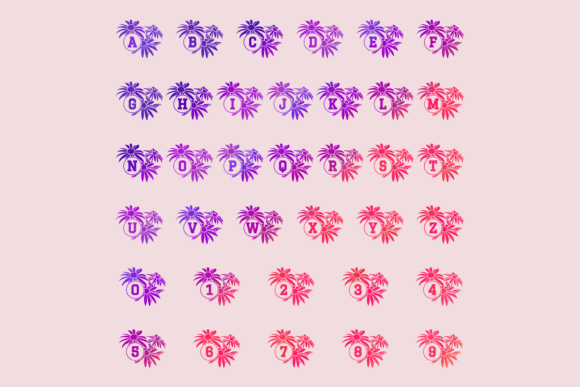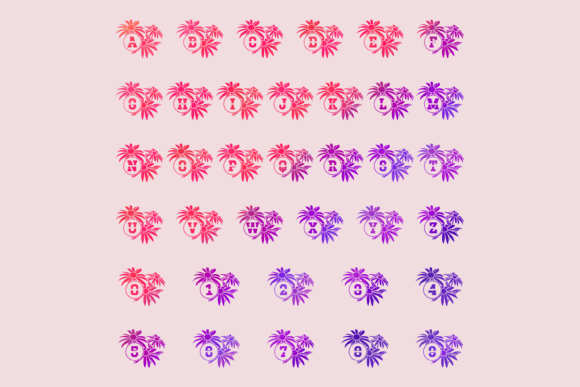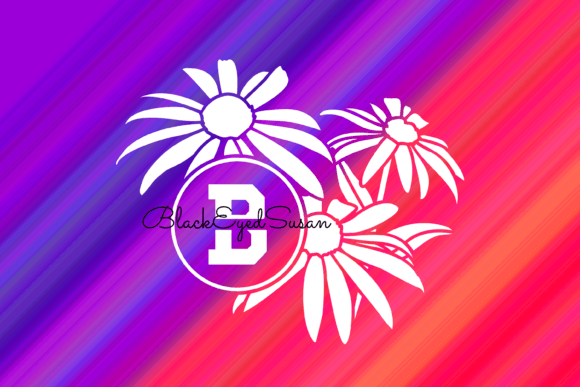
Introducing the Elegant Black Eyed Susan Font: Elevate Your Crafts with a Touch of Botany
Are you a designer, crafter, or DIY enthusiast looking for a unique and elegant font to add a special touch to your creations? Look no further than the Black Eyed Susan Font, a beautiful botanical decorative font that is sure to impress. This stunning font consists of two styles: regular and split, offering versatility and flexibility for a wide range of projects.
What is the Black Eyed Susan Font?
The Black Eyed Susan Font is a carefully crafted botanical decorative font that captures the essence of nature’s beauty. Inspired by the delicate petals and intricate details of the Black Eyed Susan flower, this font is perfect for adding a touch of elegance and sophistication to your designs. With its ornate and flowing lines, this font is ideal for creating custom designs, DIY crafts, and other creative projects that require a lovely touch.
Key Features of the Black Eyed Susan Font
- Two Styles: The Black Eyed Susan Font comes in two styles: regular and split. The regular style offers a smooth, flowing design, while the split style adds a unique and creative twist with its divided letterforms.
- Elegant and Botanical: This font is inspired by the beauty of nature, making it perfect for projects that require a touch of elegance and sophistication.
- Versatile: The Black Eyed Susan Font can be used for a wide range of projects, from custom designs and DIY crafts to stationery, signage, and more.
Uses for the Black Eyed Susan Font
The Black Eyed Susan Font is perfect for a variety of projects, including:
- Custom Designs: Add a personal touch to your designs with this beautiful font. Use it for logos, branding, and marketing materials.
- DIY Crafts: Elevate your DIY crafts with the Black Eyed Susan Font. Use it for scrapbooking, card making, and other paper crafts.
- Stationery: Create beautiful stationery, such as invitations, greeting cards, and letterhead, with this elegant font.
- Signage: Use the Black Eyed Susan Font for signage, such as menus, posters, and banners.
Tips for Using the Black Eyed Susan Font
To get the most out of the Black Eyed Susan Font, here are a few tips:
- Experiment with Colors: Try pairing the Black Eyed Susan Font with different colors to create unique and eye-catching designs.
- Mix and Match: Combine the regular and split styles to create interesting and dynamic designs.
- Use it Sparingly: Use the Black Eyed Susan Font sparingly to add a touch of elegance to your designs. Avoid overusing it, as it can become overwhelming.
The Black Eyed Susan Font is a beautiful and elegant botanical decorative font that is perfect for designers, crafters, and DIY enthusiasts. With its two styles, versatility, and ease of use, this font is sure to become a favorite in your collection. Whether you’re creating custom designs, DIY crafts, or stationery, the Black Eyed Susan Font is an excellent choice. So why wait? Download the Black Eyed Susan Font today and add a touch of elegance to your creations!